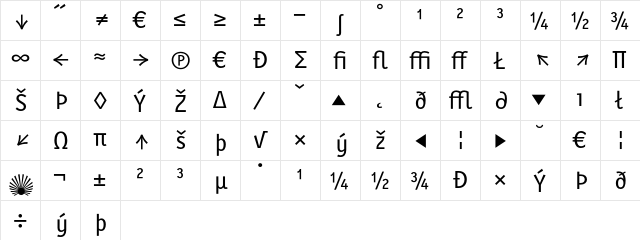
Karbid NormalExpert
Design Context for Karbid Typeface
Karbid is a composed and adaptable typeface that performs quietly and consistently across a wide range of design contexts.